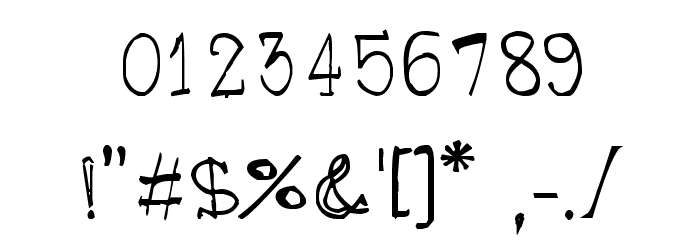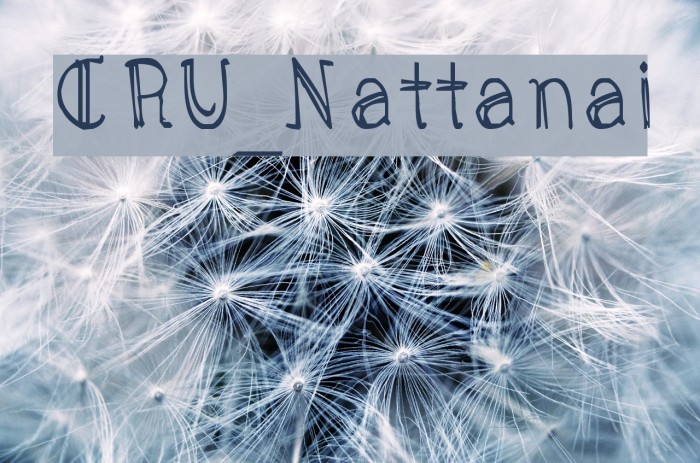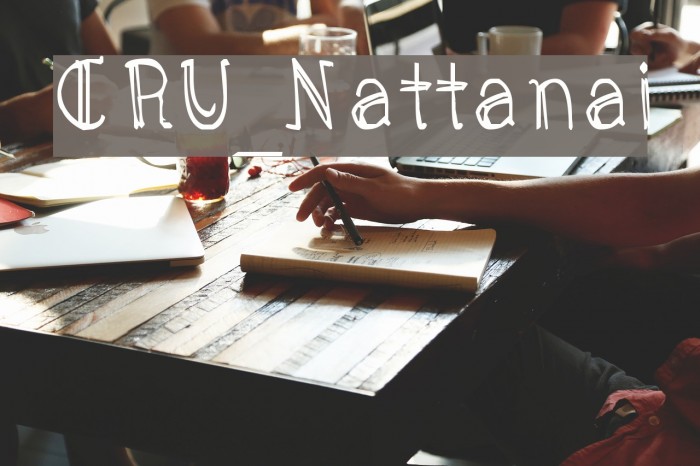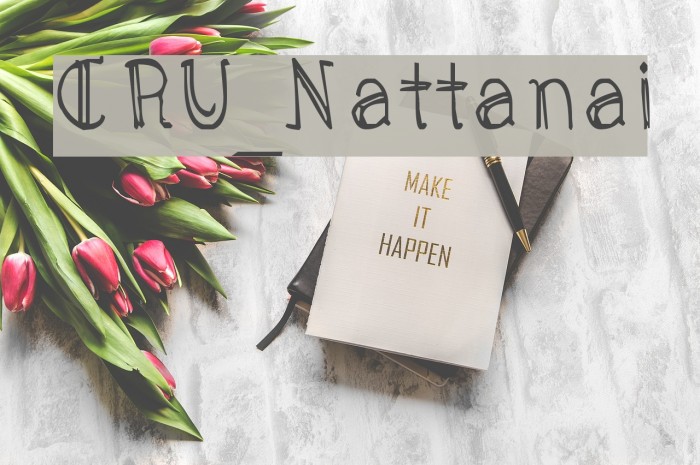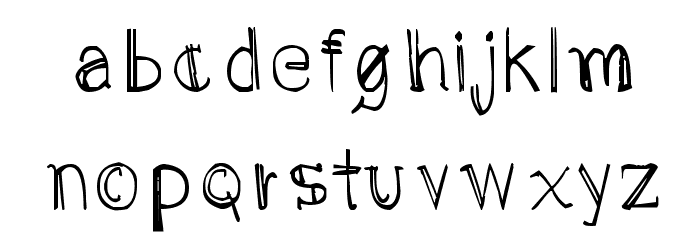
CRU_Nattanai Font
CRU_Nattanai Description
This font features a quirky and playful design, characterized by its irregular and whimsical letterforms. Each character exhibits a unique style, with varying stroke widths and unexpected angles, creating a sense of movement and dynamism. The uppercase letters are bold and attention-grabbing, while the lowercase letters maintain a consistent yet playful appearance. Numbers and special characters follow the same playful theme, adding to the font's overall charm. The font's distinct style makes it suitable for creative and informal projects, where a touch of personality is desired.
A quirky and playful font with irregular, whimsical letterforms from Uncategorized fonts.
- Proposed Projects: Ideal for children's books, creative posters, playful branding, and informal invitations.
- Overall Style: Playful, Quirky, Creative
- Use Case: Headlines, Posters, Branding